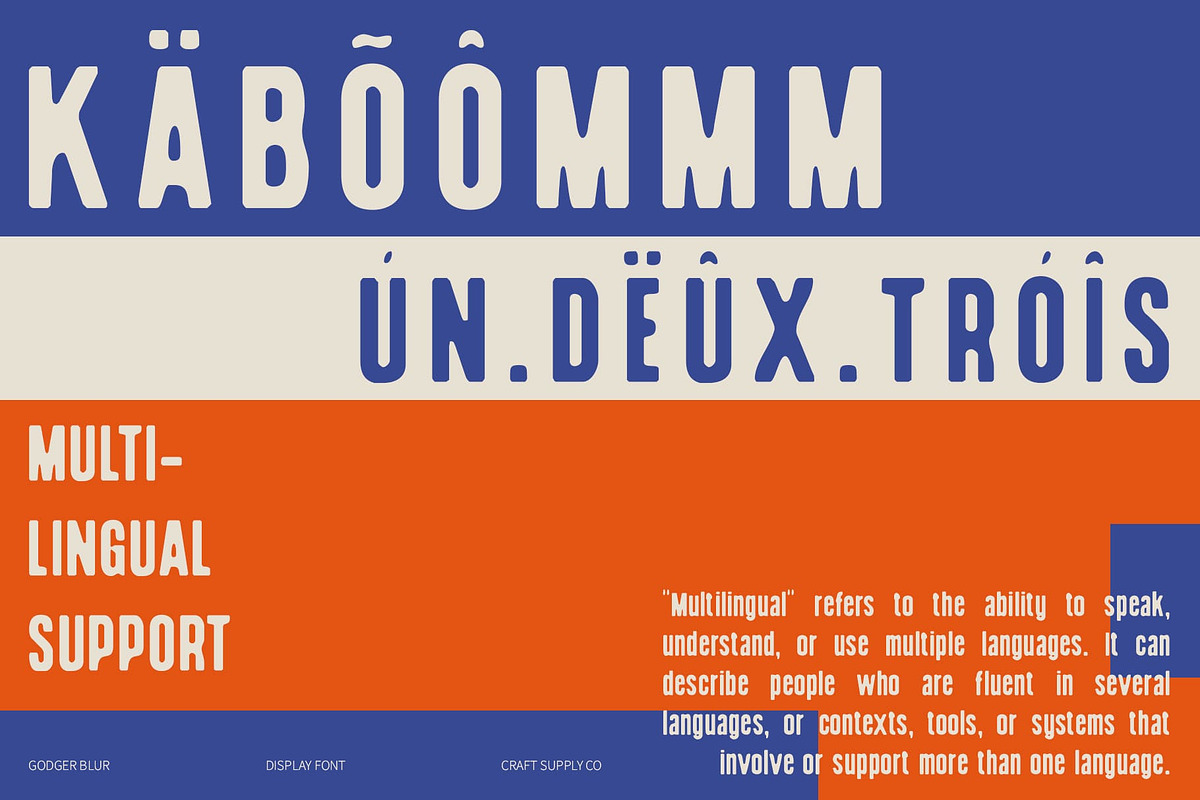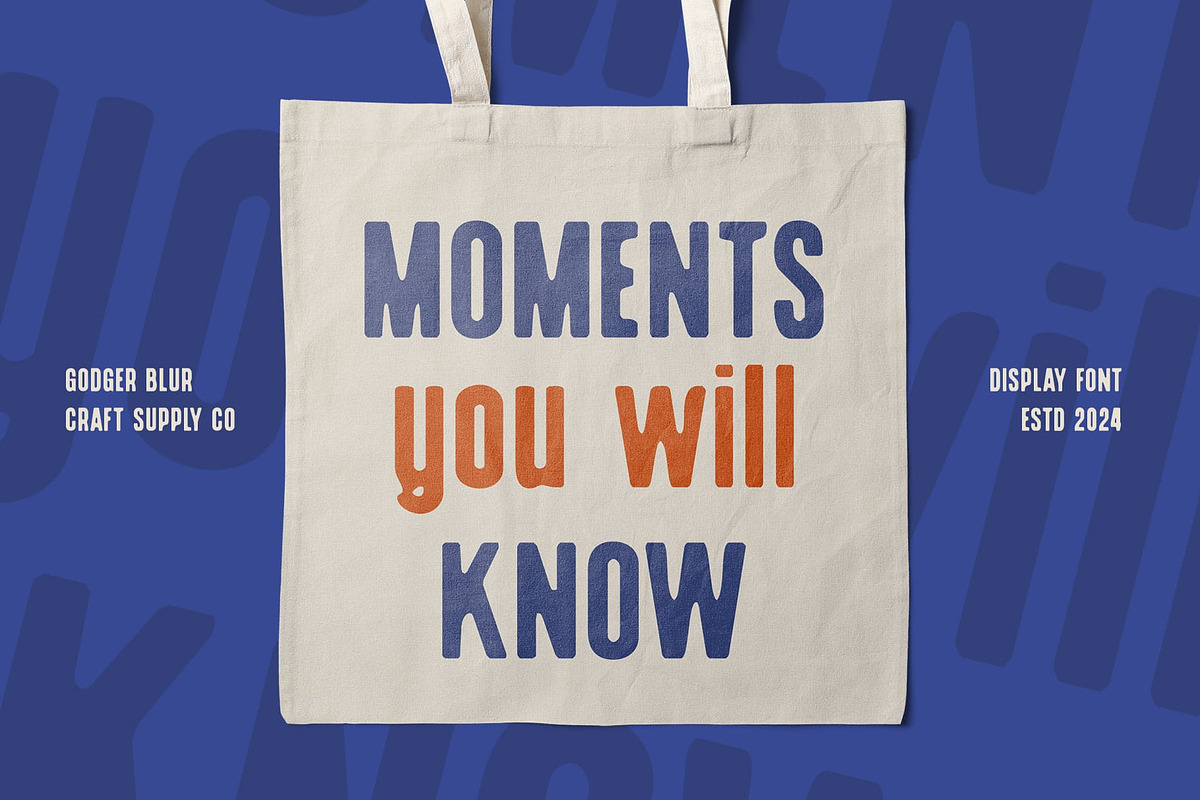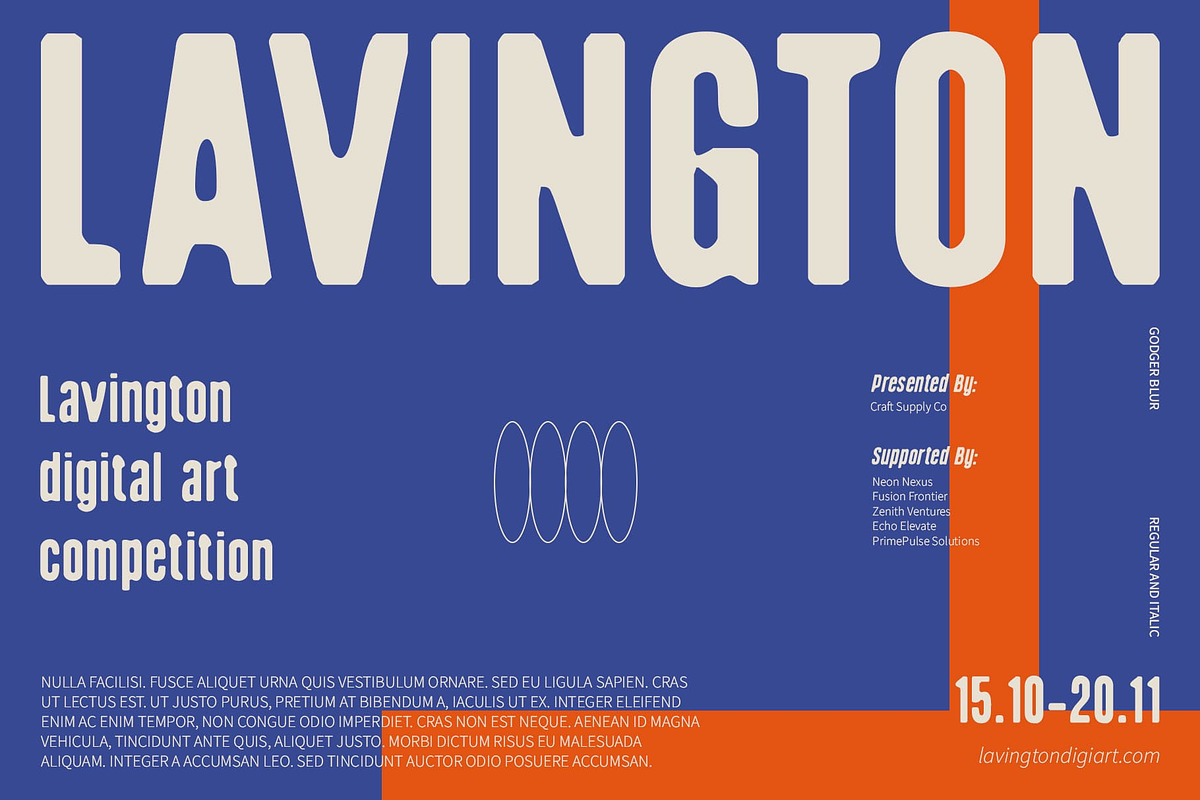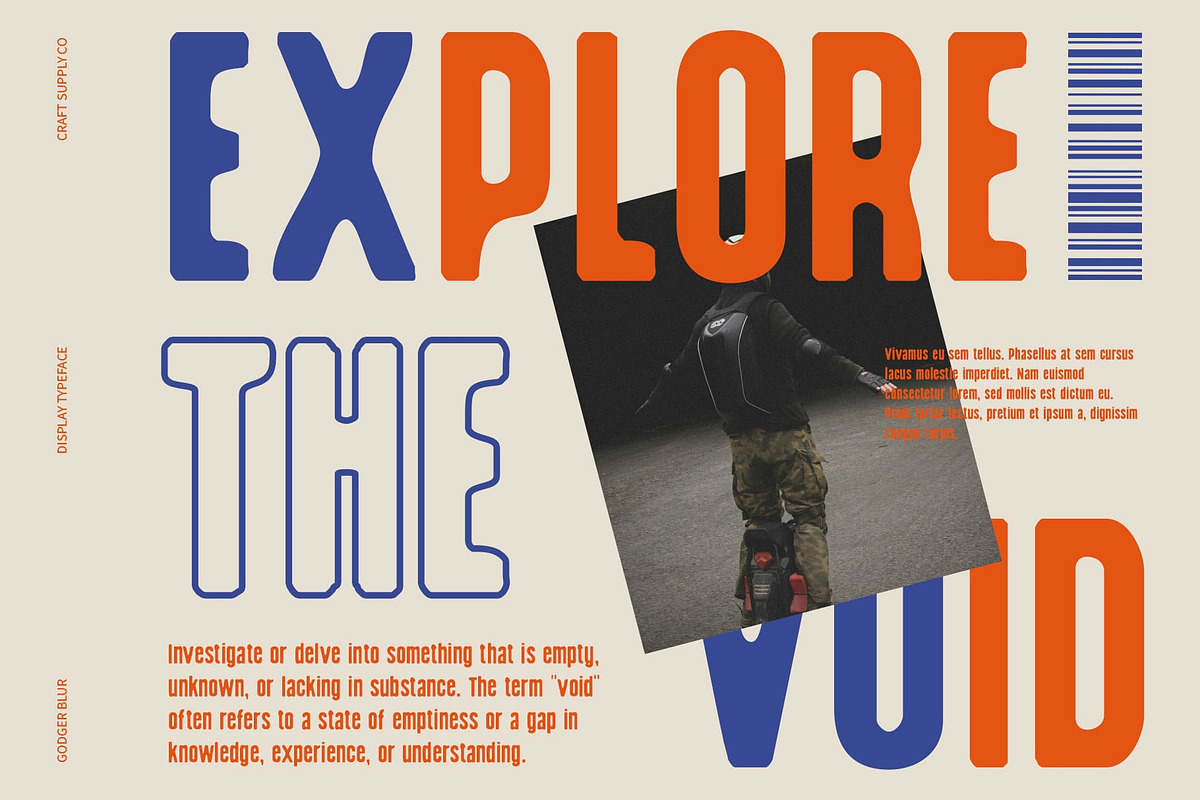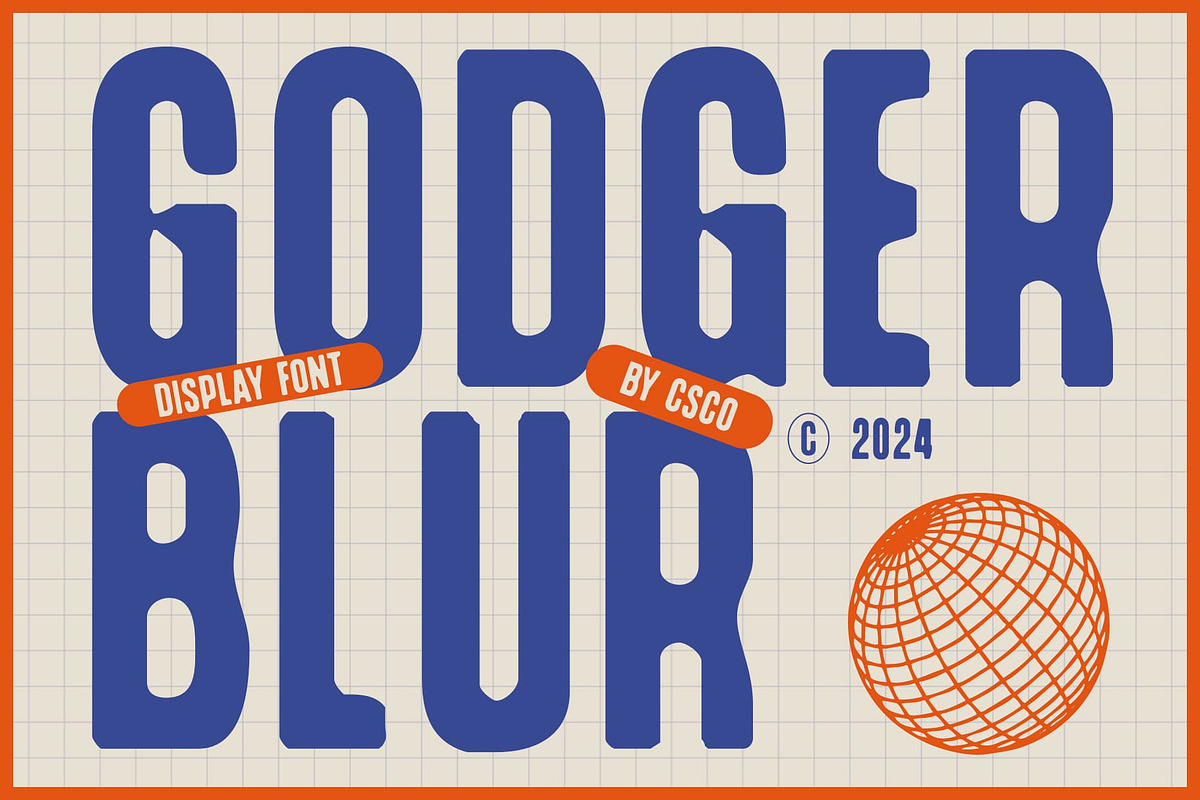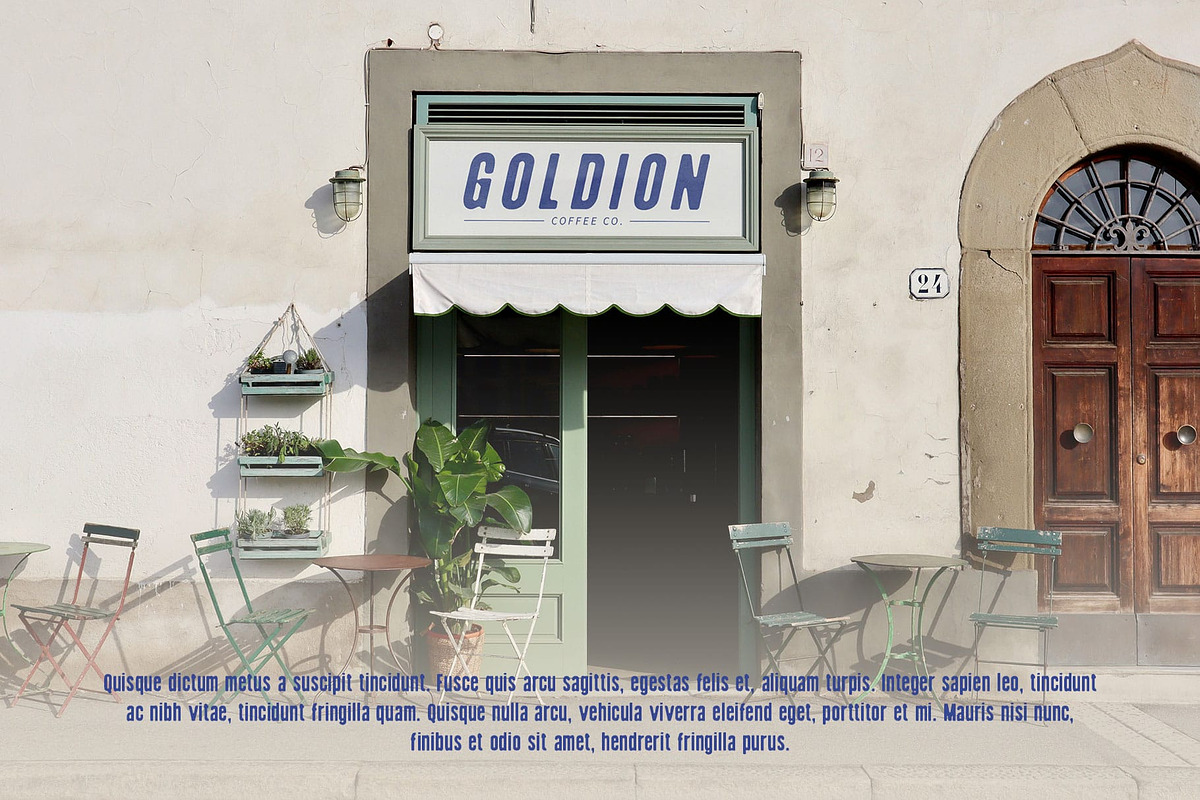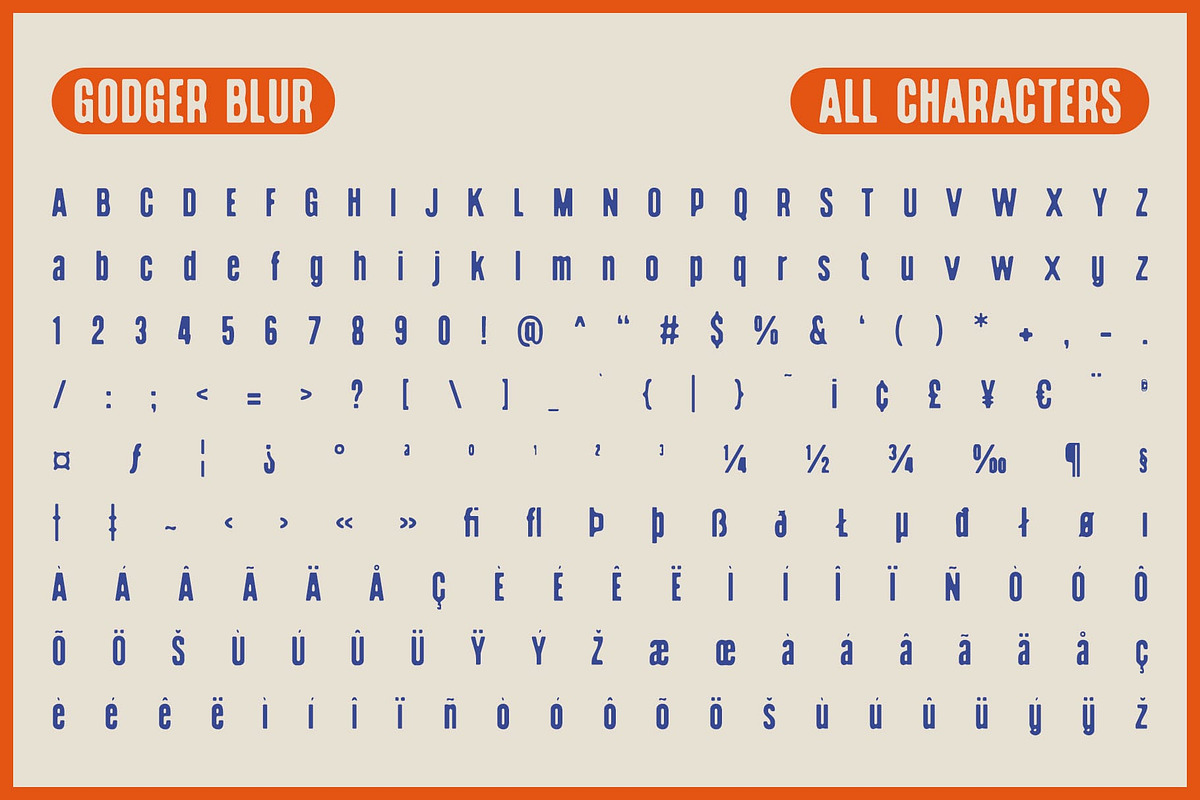
Godger Blur
Godger Blur – Modern Sans-Serif Font: Bold, Condensed, and Visually Dynamic
Bold and Condensed Design with Contemporary Blur Effect** Godger Blur is a modern sans-serif font that combines a bold, condensed design with a unique blur effect, offering a sleek and strong appearance. The condensed form ensures efficient use of space while maintaining excellent readability, making it ideal for text-heavy applications. The blur effect introduces a smooth, contemporary look with a subtle, soft touch, adding visual dimension and depth to the font.
Efficient Use of Space with Clear Readability The condensed shape of Godger Blur allows for maximum text placement in limited spaces without sacrificing clarity. Its bold design ensures that each letter stands out with strong, impactful presence, making it perfect for headlines, banners, and other high-visibility applications. The blur effect softens the edges, enhancing the modern aesthetic while maintaining a professional and clean appearance.
Visual Dimension with a Soft Contemporary Touch Godger Blur’s blur effect creates a distinctive visual dimension, adding a smooth and polished quality to the font. This contemporary touch provides a soft and sophisticated look, balancing the font’s bold and condensed form with a modern, dynamic appeal. The result is a font that combines strength with subtle elegance, ideal for projects needing a stylish and professional impression.
- Godger Blur Regular
- Godger Blur Italic